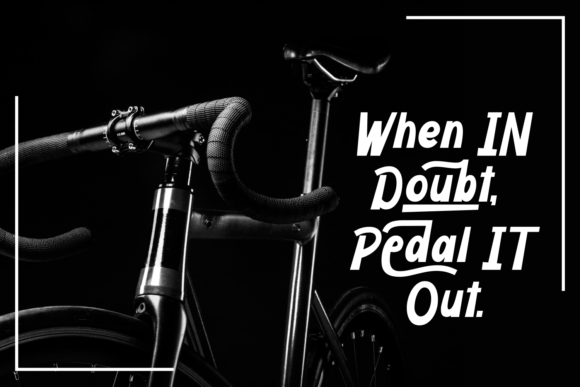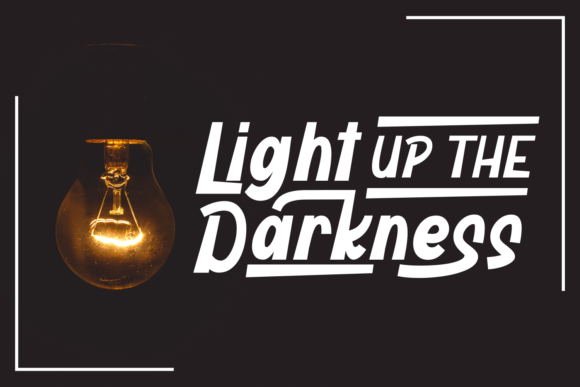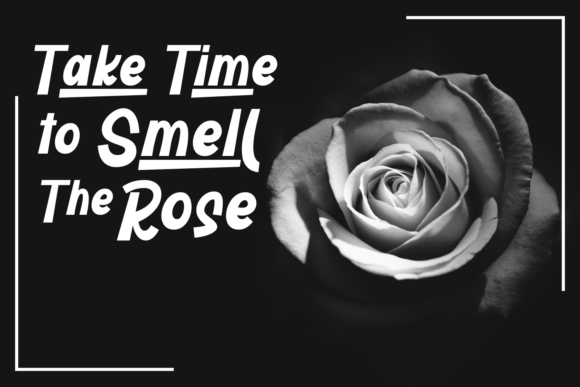
Ametta Camberlyn Font: Elevate Your Designs with a Unique Twist
In the world of typography, a font can make or break a design. Ametta Camberlyn Font is a stunning, playful, and bold display font that can instantly transform any design idea into a true standout. With its unique twist, this font is perfect for designers and crafters looking to add a touch of personality to their projects.
What Makes Ametta Camberlyn Font Special?
Ametta Camberlyn Font boasts a distinctive design that sets it apart from other fonts. Its bold and playful style makes it ideal for headlines, titles, and short text passages. The font’s unique twist adds a touch of whimsy, making it perfect for designs that require a bit of flair.
Whether you’re working on a branding project, creating social media graphics, or designing a website, Ametta Camberlyn Font can help you make a statement. Its versatility and legibility ensure that your message gets across clearly, while its stylish design elements add a touch of sophistication.
Key Features of Ametta Camberlyn Font
- Unique Twist: Ametta Camberlyn Font features a distinctive design element that sets it apart from other fonts.
- Bold and Playful: The font’s bold and playful style makes it perfect for headlines, titles, and short text passages.
- Highly Legible: Ametta Camberlyn Font is designed to be easy to read, even at small sizes.
- Versatile: The font can be used for a wide range of design projects, from branding and advertising to web design and crafting.
How to Use Ametta Camberlyn Font in Your Designs
Ametta Camberlyn Font is easy to use and can be incorporated into your designs in a variety of ways. Here are a few ideas to get you started:
- Headlines and Titles: Use Ametta Camberlyn Font to create eye-catching headlines and titles that grab attention.
- Branding and Logo Design: The font’s unique twist makes it perfect for branding and logo design projects.
- Social Media Graphics: Add a touch of personality to your social media graphics with Ametta Camberlyn Font.
- Web Design: Use the font to create stylish and legible website headers, titles, and short text passages.
Tips for Getting the Most Out of Ametta Camberlyn Font
To get the most out of Ametta Camberlyn Font, here are a few tips to keep in mind:
- Experiment with Different Sizes: Ametta Camberlyn Font looks great at a variety of sizes, so don’t be afraid to experiment.
- Play with Color: The font’s bold design looks great in a range of colors, so try out different options to find the one that works best for your design.
- Mix and Match: Combine Ametta Camberlyn Font with other fonts to create a unique and stylish typography combination.
Ametta Camberlyn Font is a beautiful, playful, and bold display font that can add a unique twist to any design project. With its highly legible design and versatile style, it’s perfect for designers and crafters looking to make a statement. Whether you’re working on a branding project, creating social media graphics, or designing a website, Ametta Camberlyn Font is a great choice. So why not give it a try and see how it can elevate your designs?